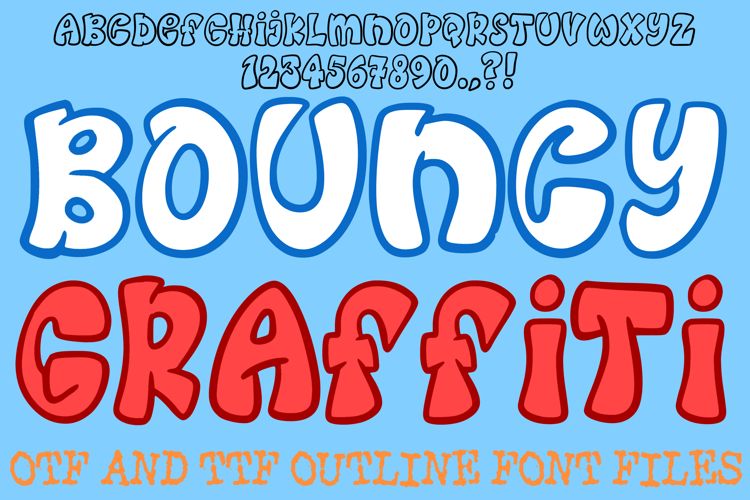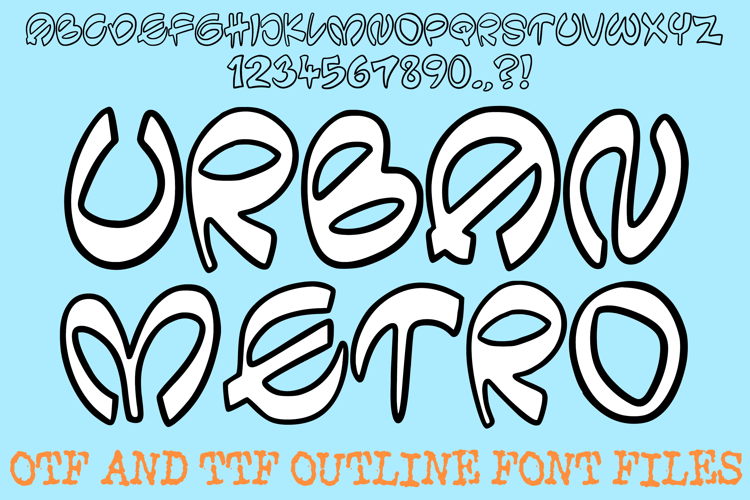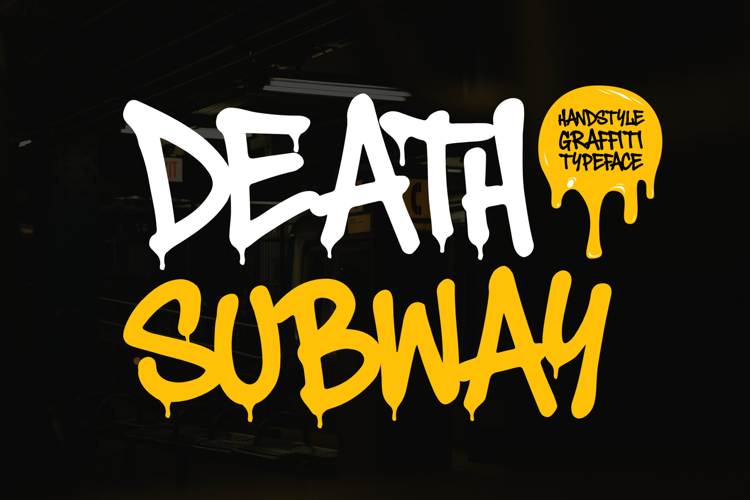
Skate Font
A skate font can lean toward the half-pipe or the roller rink, and this collection covers both: graffiti drips in Death Subway, rough brush texture in Skate Matter, and playful handwriting in Roller Skates and Skate in Atlanta. There are over 2,000 fonts, and nearly all come as OTF and TTF.
Skater fonts for decks, shop logos and rink flyers
Street styles dominate. Bouncy Graffiti and Urban Metro are hand-drawn alphabets for sticker sheets and spray-paint-look shirt slogans, while Constarz is a marker brush script with the scrawl of a tagged wall. If you need a skateboard font for a shop logo or deck graphic, Skateboard and Skater Girl are named for the job, and Monday Skate keeps things casual. Roller derby teams and rink birthday parties will find softer options in the handwritten Roller Skates and Skate in Atlanta.